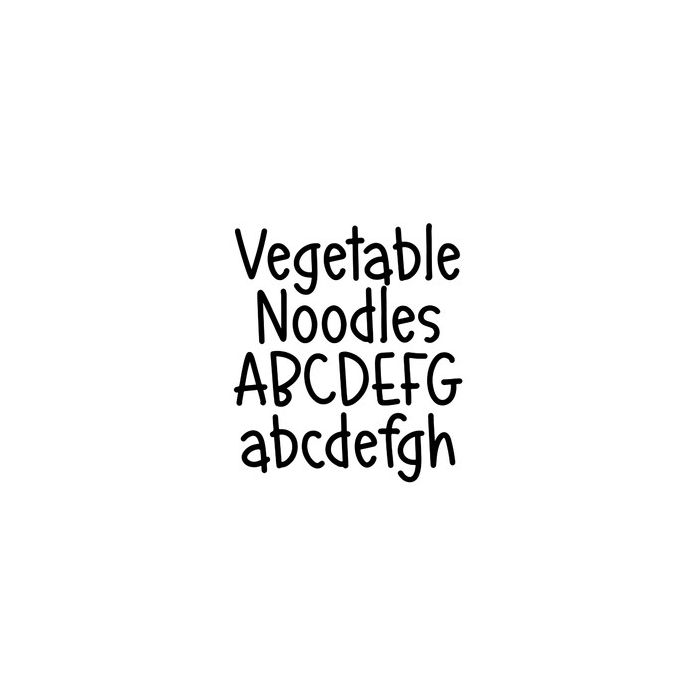
BC Vegetable Noodles Quirky Cute Goodnotes Handwriting Font
Vegetable Noodles is a quirky bold handwriting font. Perfect for digital planners and goodnotes!